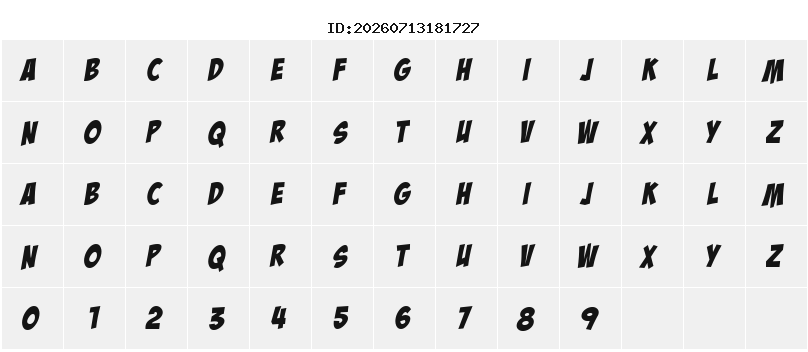
• Font Name: BadaBoom BB
• Font ID: BadaBoom BB
• Full Font Name: BadaBoom BB
• Version: Macromedia Fontographer 4.1 4/28/03
• PostScript Name: BadaBoomBB
• Character Count: 89
About BadaBoom BB.ttf
BadaBoom BB.ttf is a modern, elegant sans-serif font designed for ultimate readability and visual harmony. Perfect for branding, headlines, web design, and print materials.